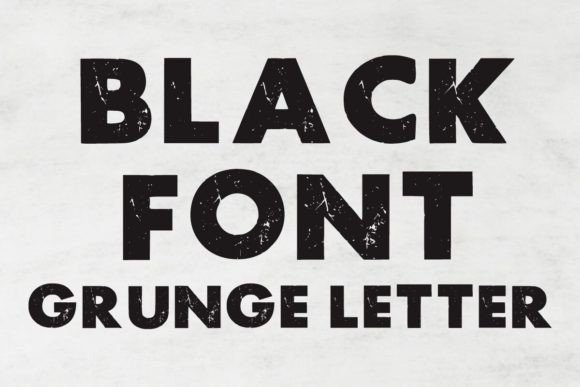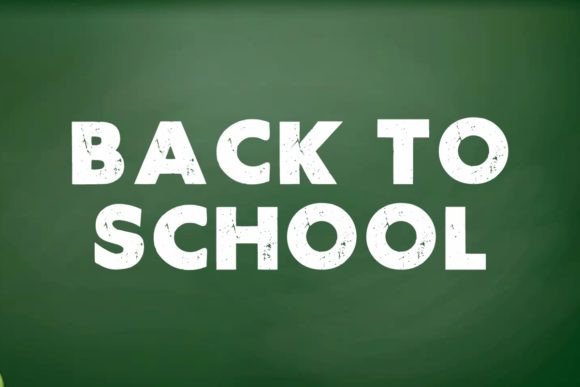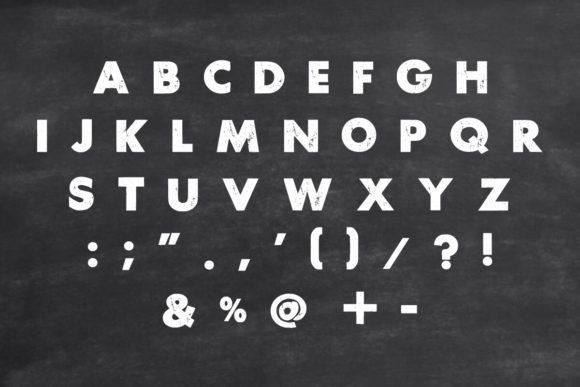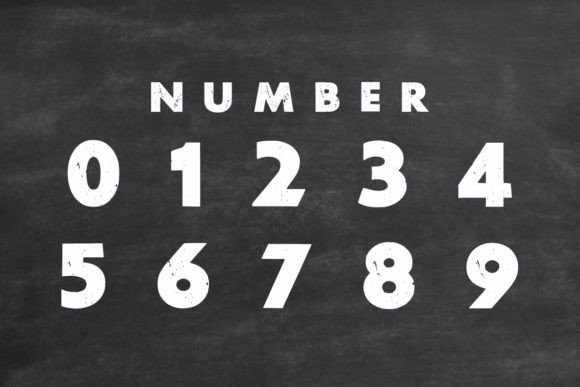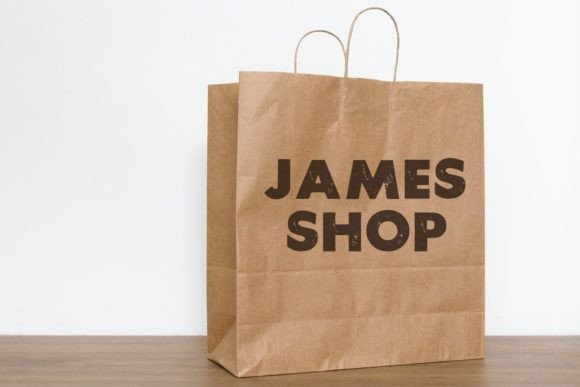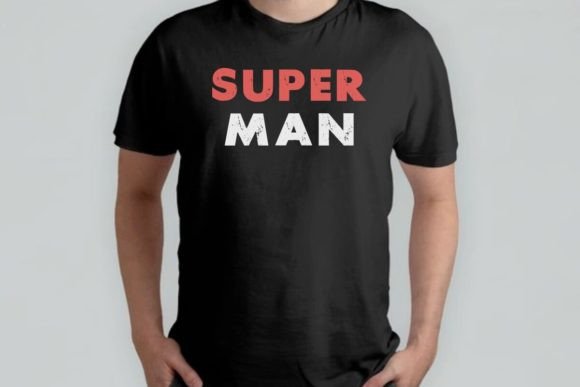
Introduction to James College Font
James College is a Vintage, cool, grunge bold display font perfect for various projects such as blog posts, logos, branding, ads, invitations, greeting cards, planners, photo albums, decorations, and much more.
James College is a Vintage, cool, grunge bold display font perfect for various projects such as blog posts, logos, branding, ads, invitations, greeting cards, planners, photo albums, decorations, and
Key Features of James College Font